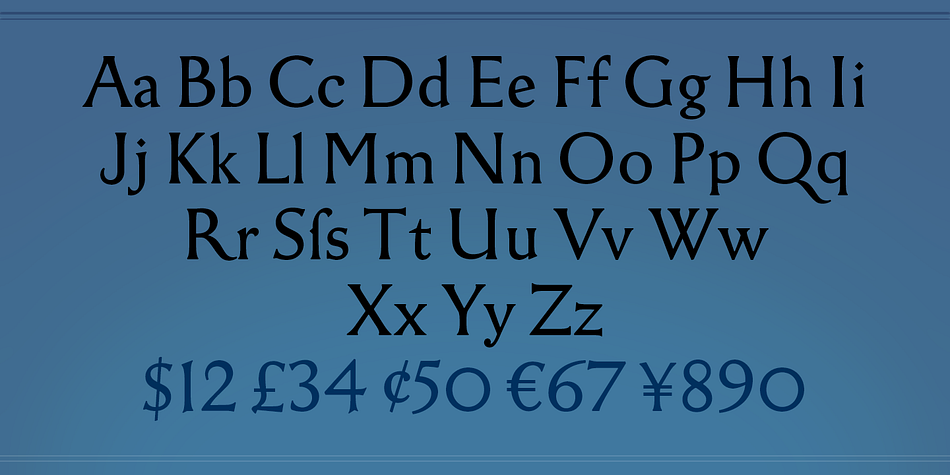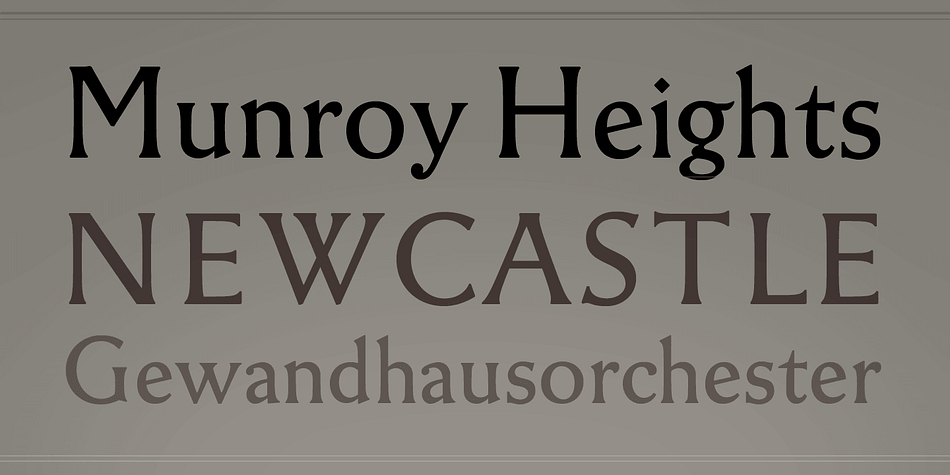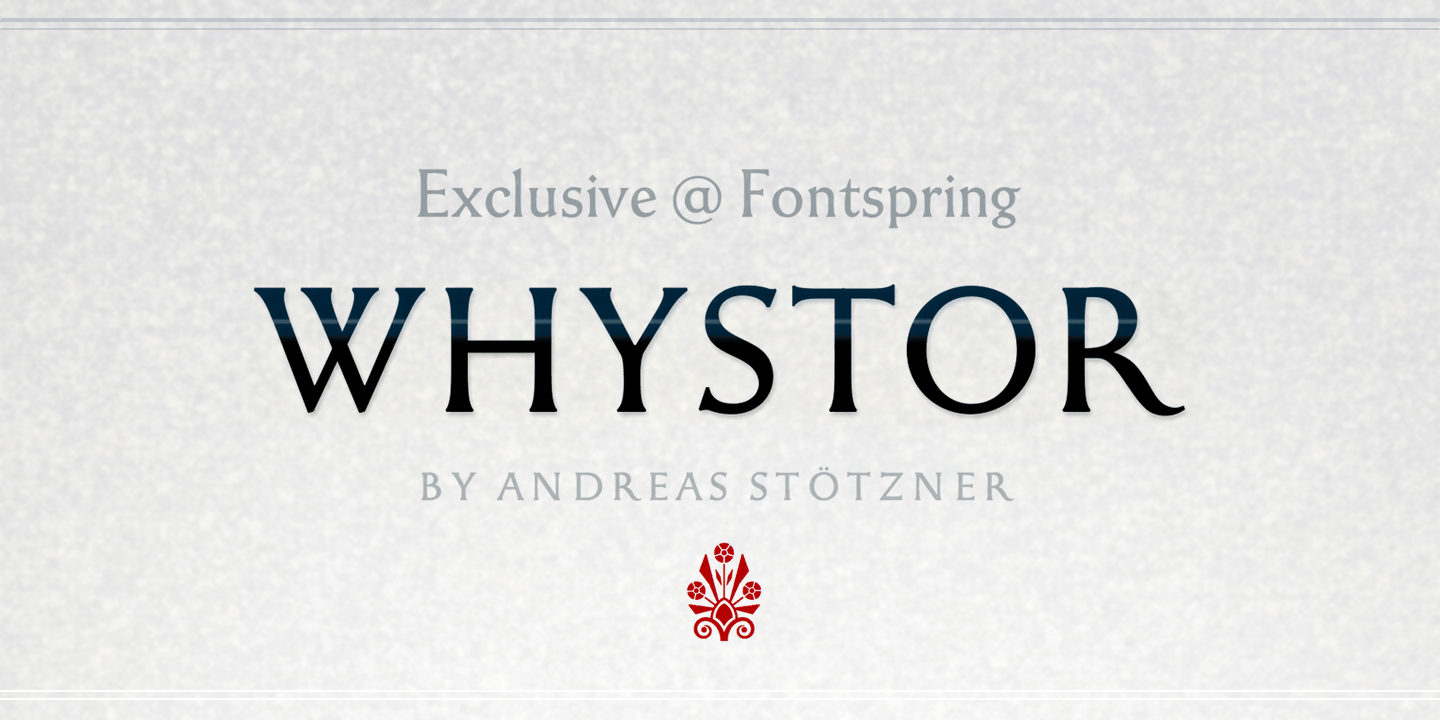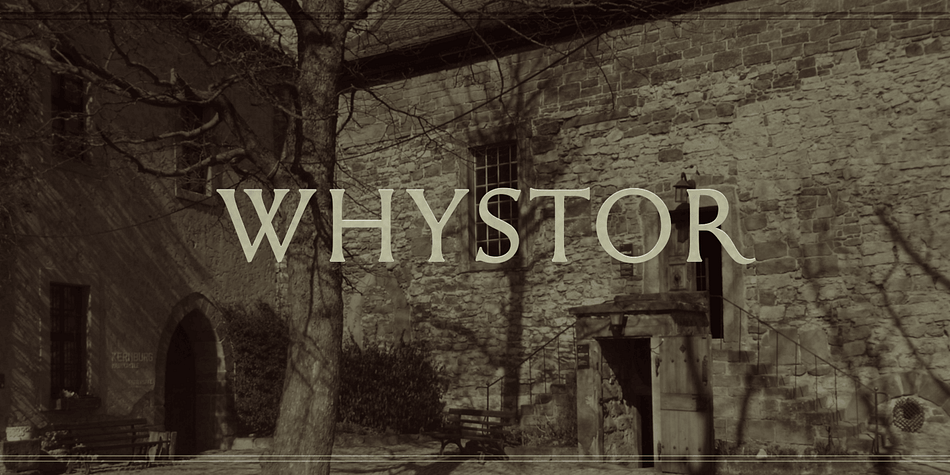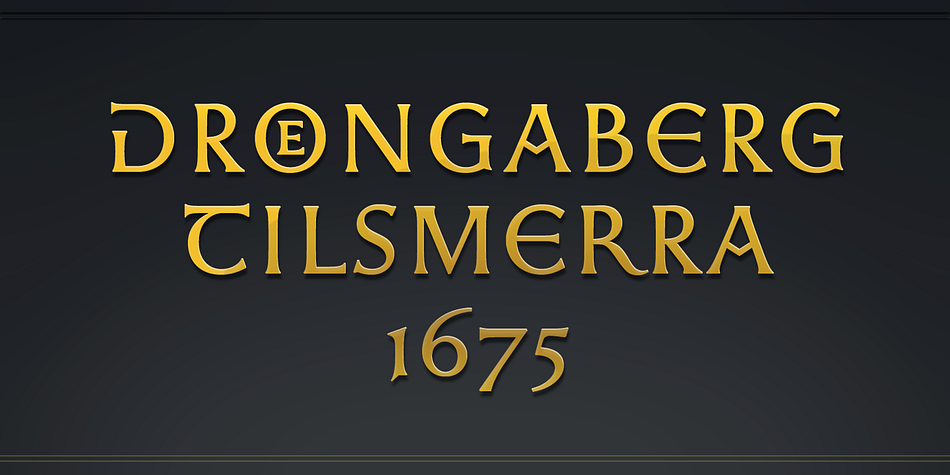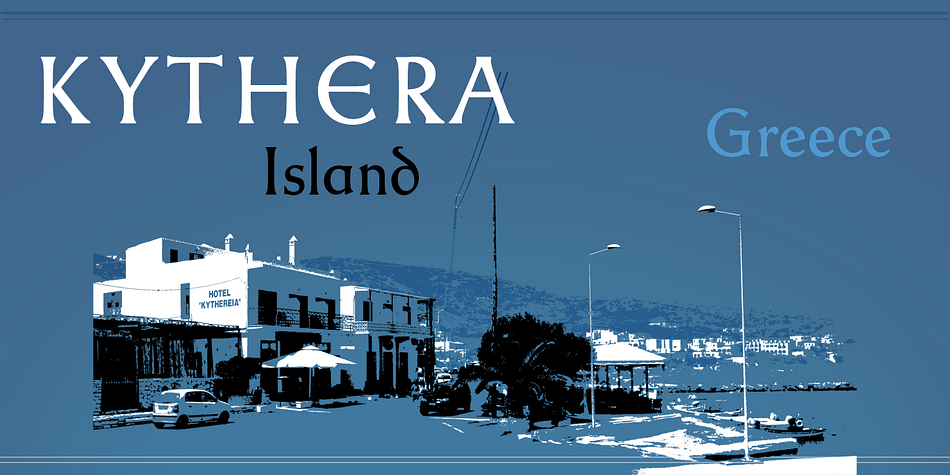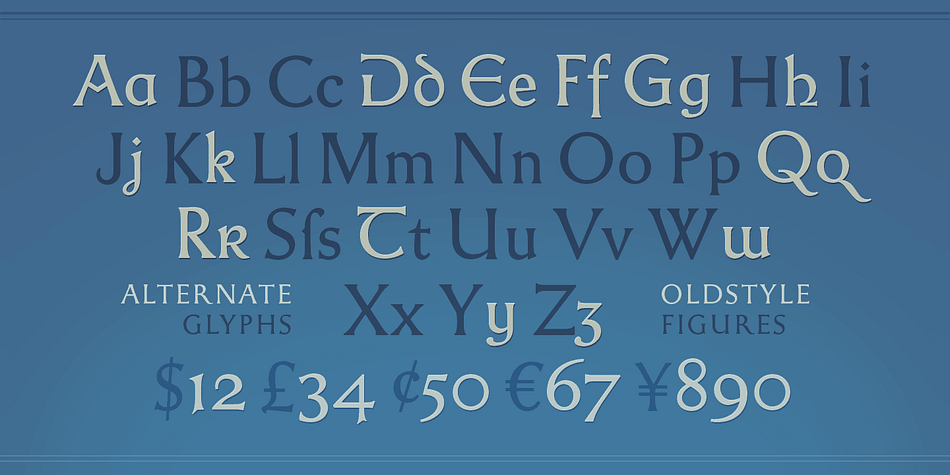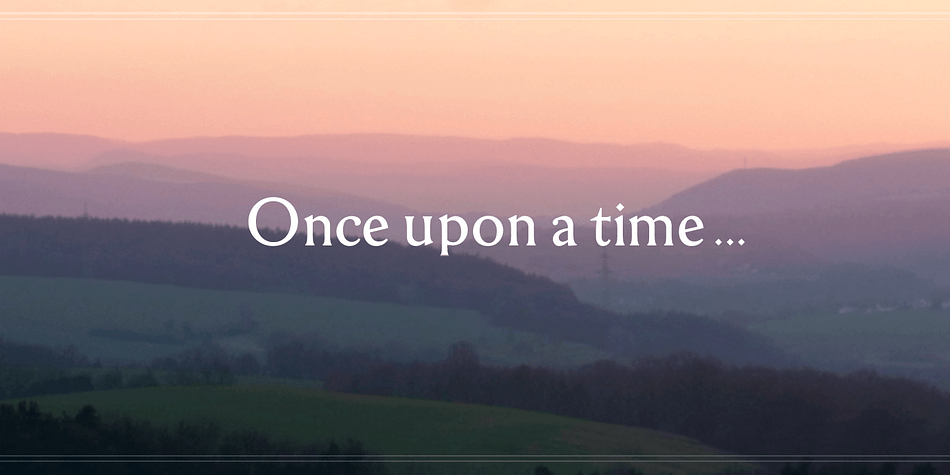
Designed by Andreas Stötzner, Whystor is a serif font published by Andreas Stötzner.
Whystor has been inspired by historic inscriptions of the 16th to 18th centuries. It is a new design from scratch. Whystor combines characteristic details with clarity and a distinguished noble touch. It features minimal serifs and a medium contrast. As an extra it provides a set of oldstyle figures and a few alternate glyphs (stylistic set 1).
Whystor is suitable for beautiful headlines and inscriptions, for menu cards, handsome book covers and film opening credits, but also shorter to medium-lenght texts bodies render very well readable in this rare typeface.
Whystor supports all Euro-Latin languages.